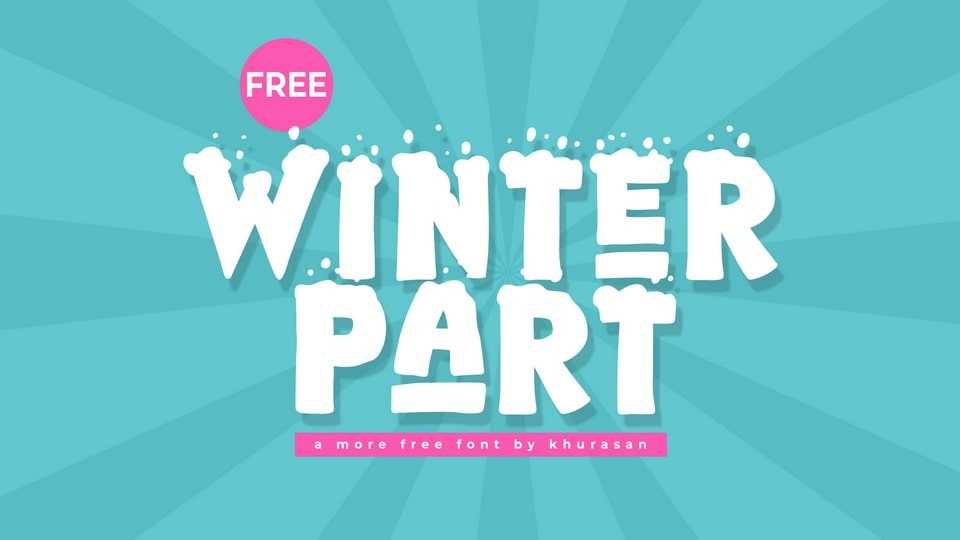
Winter Path Font › Fontesk – Download Grátis
Download Winter Path font, a playful and friendly cartoon typeface sprinkled with a whimsical snow effect with its rounded, cheerful letterforms.